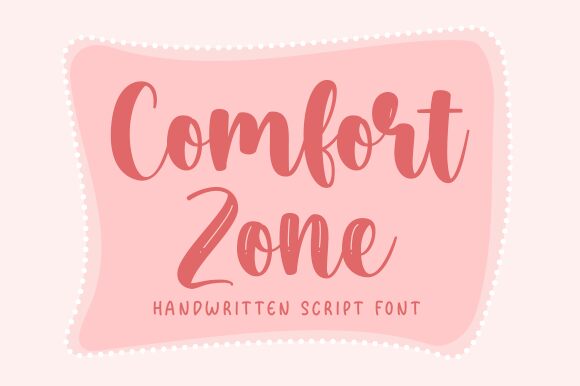
Introducing Comfort Zone, the smooth brush font designed by Risma Ramawi. With its organic and flowing strokes, this font is perfect for projects that require a touch of creativity and free-spiritedness. Use it for branding designs, social media graphics, packaging, or even for your personal blog. The various widths provide flexibility in usage while maintaining the smoothness of the brush style. Let Comfort Zone add a sense of warmth and comfort to your projects with its natural flow and effortless charm.
Comfort Zone
Risma Ramawi